List Of Swiss Fonts 2022
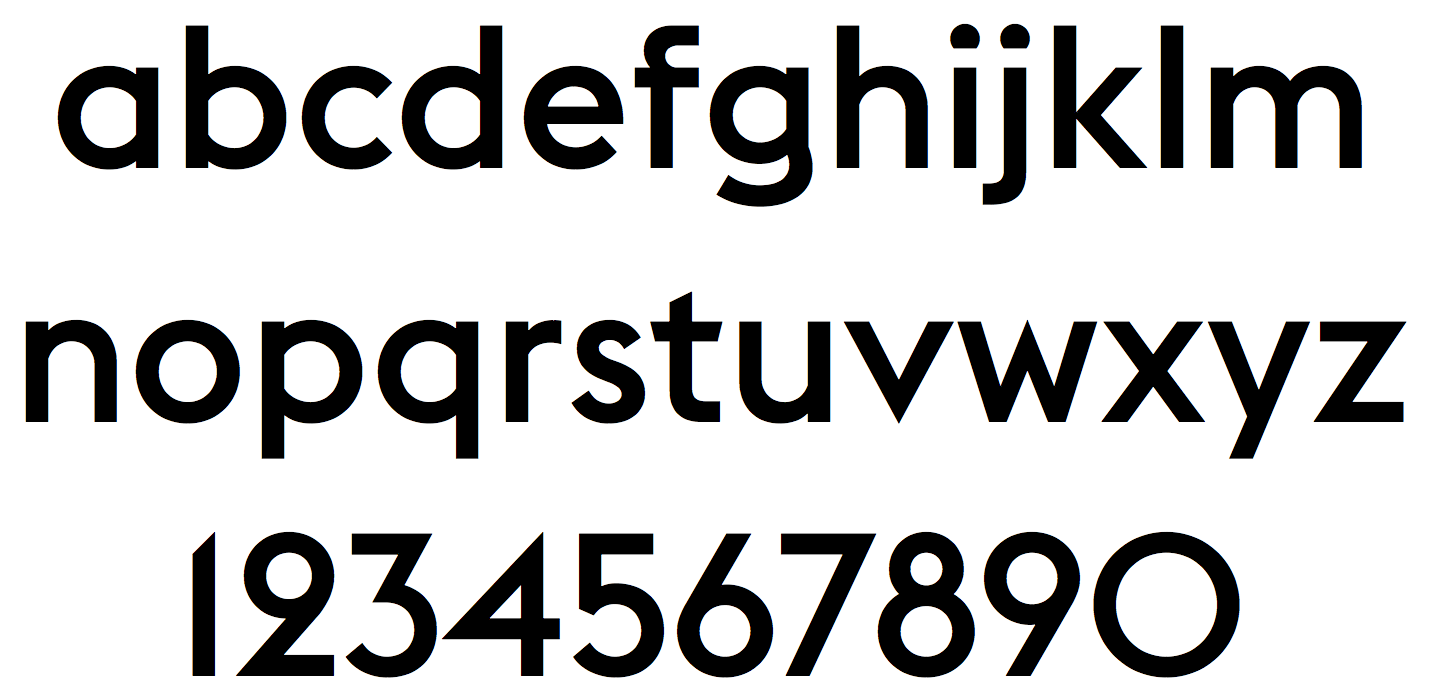
Fsdesign is a swiss label with a neat and unique set of creative fonts and. The brand new typeface by daniel perraudin is a compelling mix of conciseness and pragmatism. If you want to create professional printout, you should consider a commercial font.
Fonts From The Foundry “Swiss Typefaces” In Use.
All The Fonts On This Website Are Swiss Quality Fonts, Made In Switzerland.
Free fonts often have not all. Search from a wide range of typography fonts Swiss 911 font family was designed by matthew carter, hans jörg hunziker and published by bitstream.
It Was Released In 1982 By The Haas Type.
If you want to create professional printout, you should consider a commercial font. Swiss 721 takes the essence of mid 20th century sans serif typefaces and melds it with modern design consistency and a systematic weight range. Can i use swiss 721 bt on my website?.